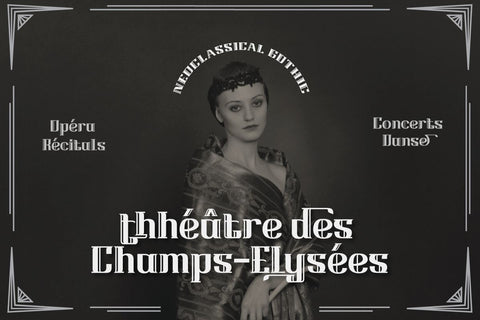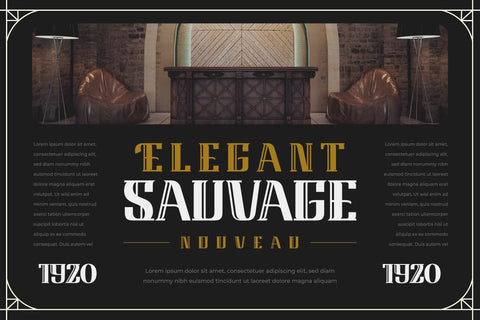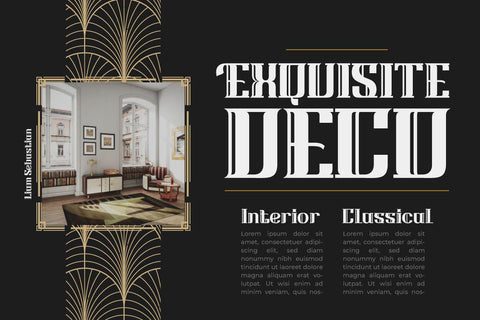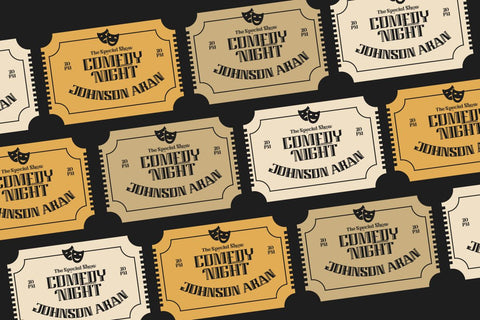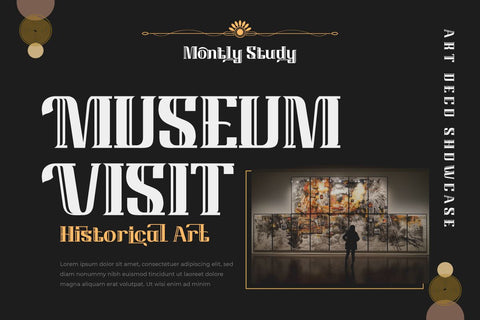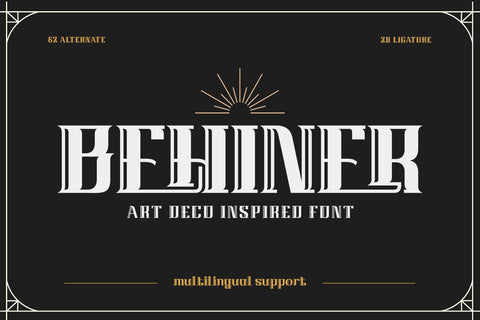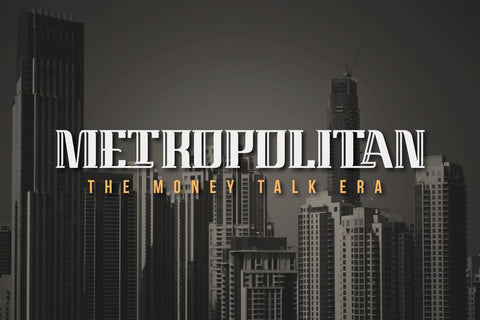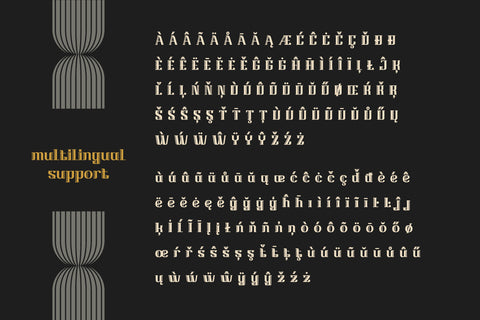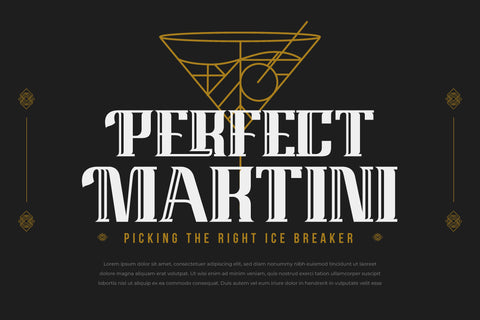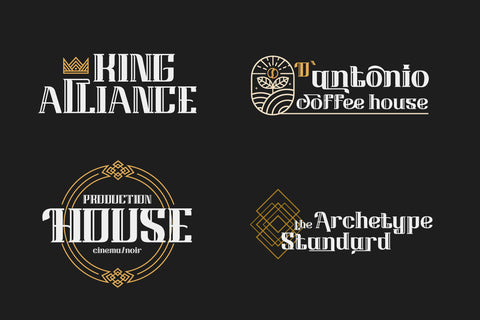
BEHINER | Art Deco Font
Behiner is a font created to offer your varied design projects a classic art deco flair. This font is sleek and modern, with simple yet appealing letterforms. The ligature function and its equivalents offer design freedom in character choices.
You may use Behiner to provide a retro feel to your commercials, posters, brochures, business cards, and other creative projects. Behiner also supports several languages, allowing you to use it in multilingual projects.